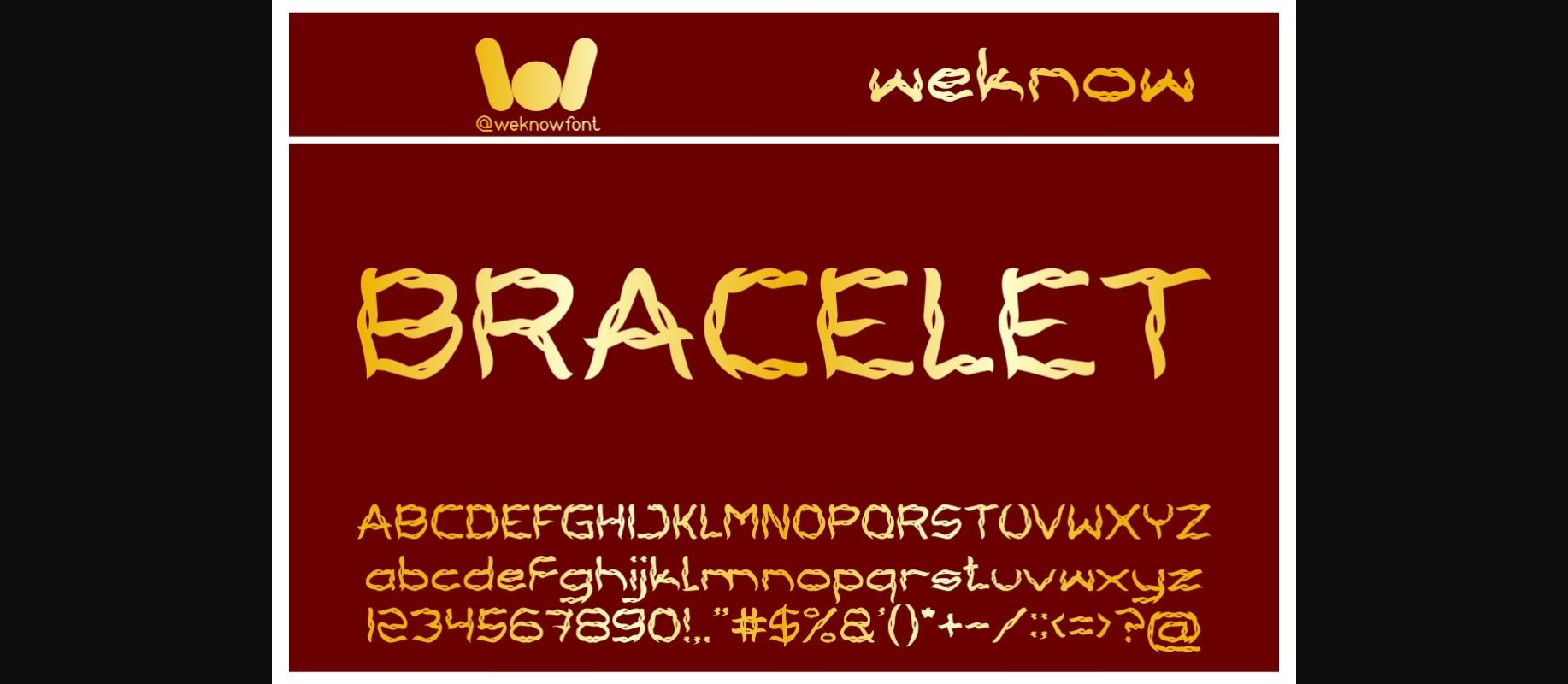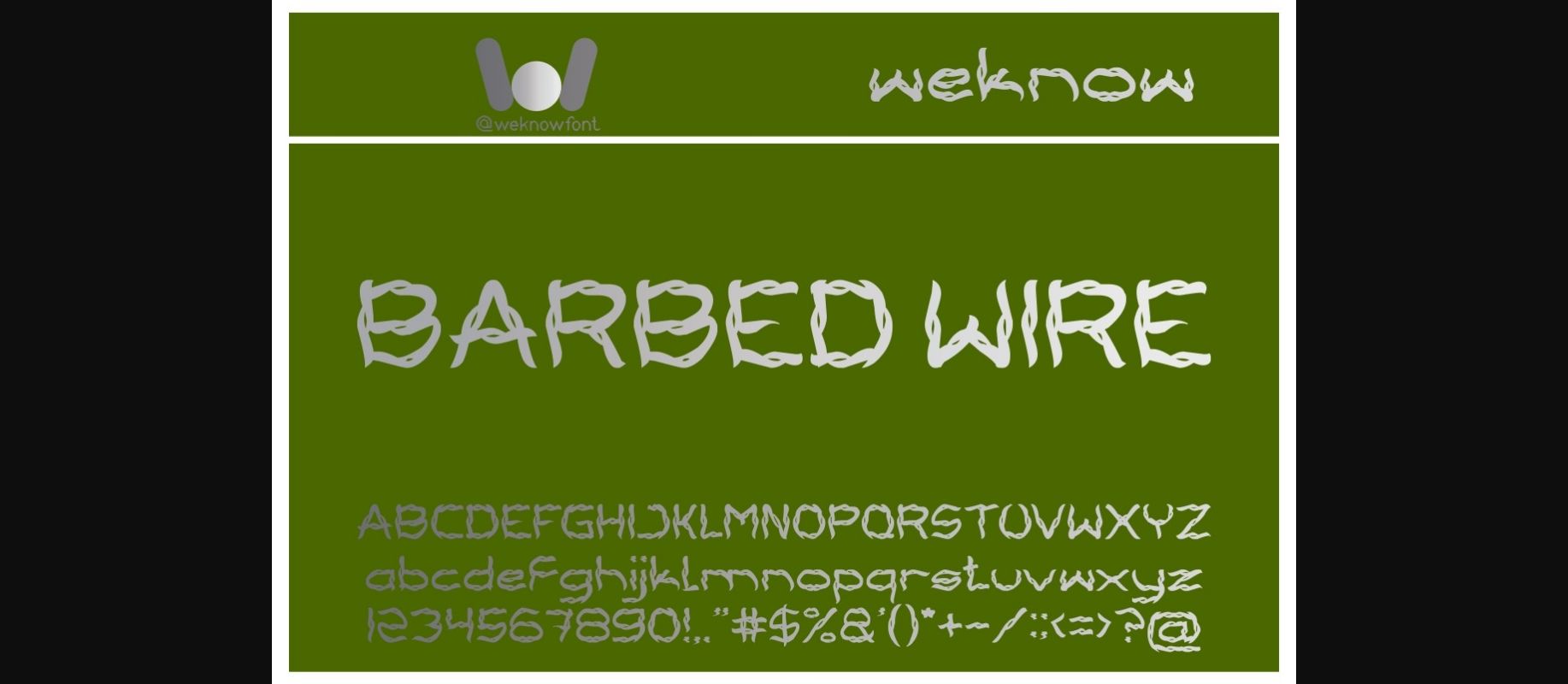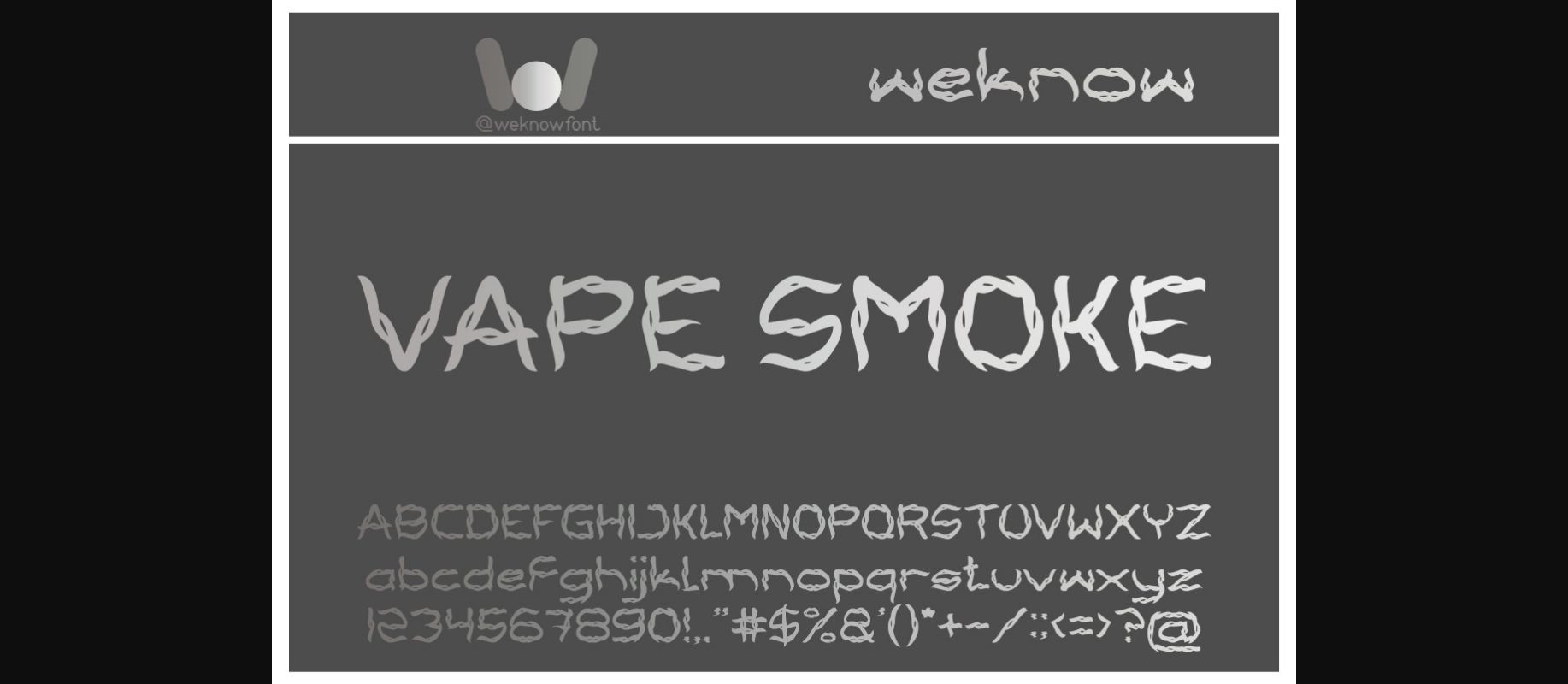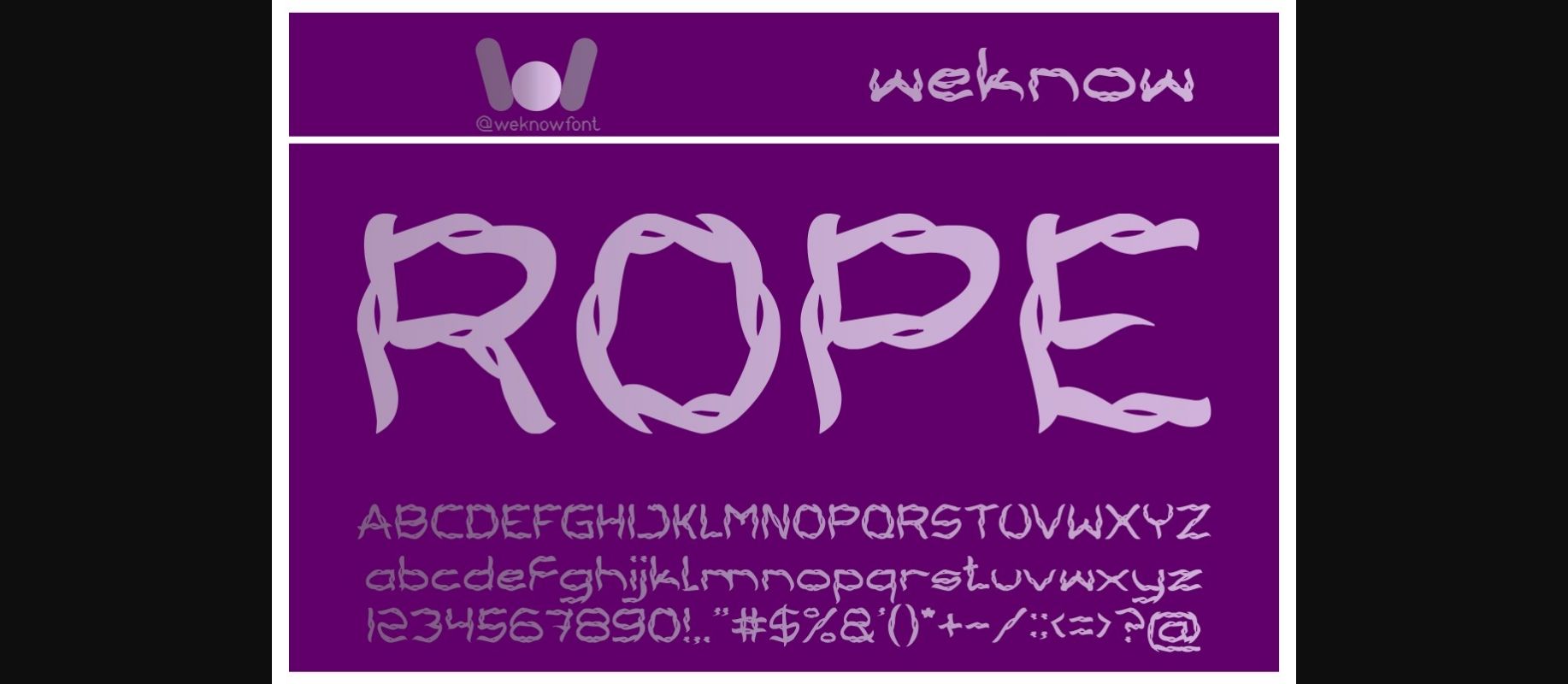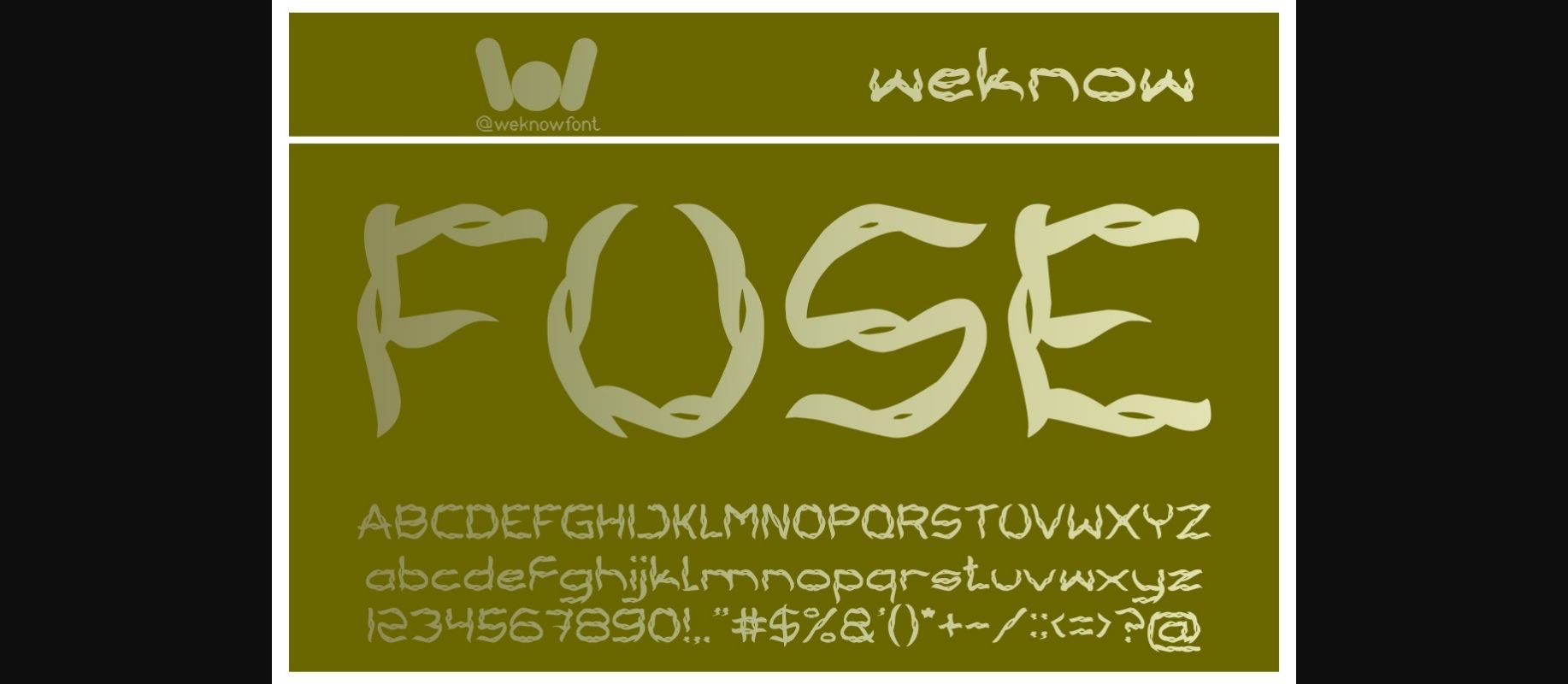
Bracelet Font
About Bracelet Font
Bracelet is a fancy decorative font suitable for a logo, logotype, headline, corporate identity, brand identity, apparel industry, poster, music, movie, game, magazine, book, comic, cartoon, YouTube, Instagram, website, or any of your creative design projects.